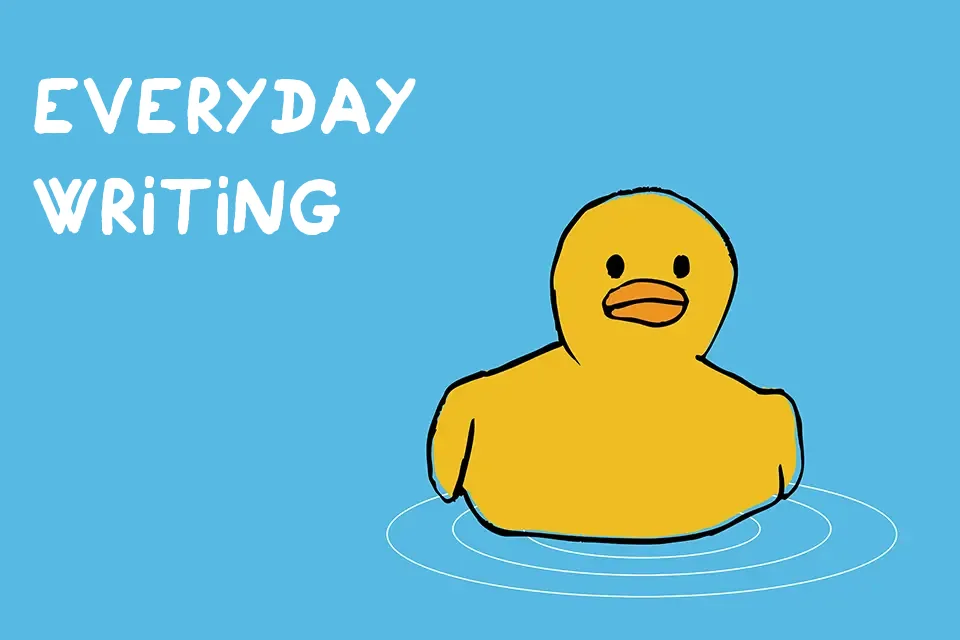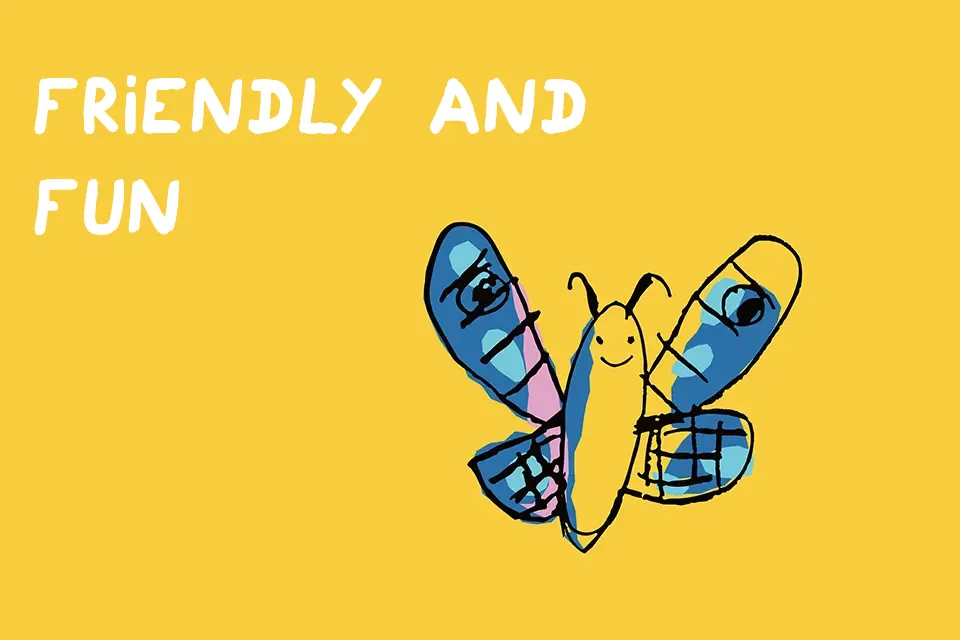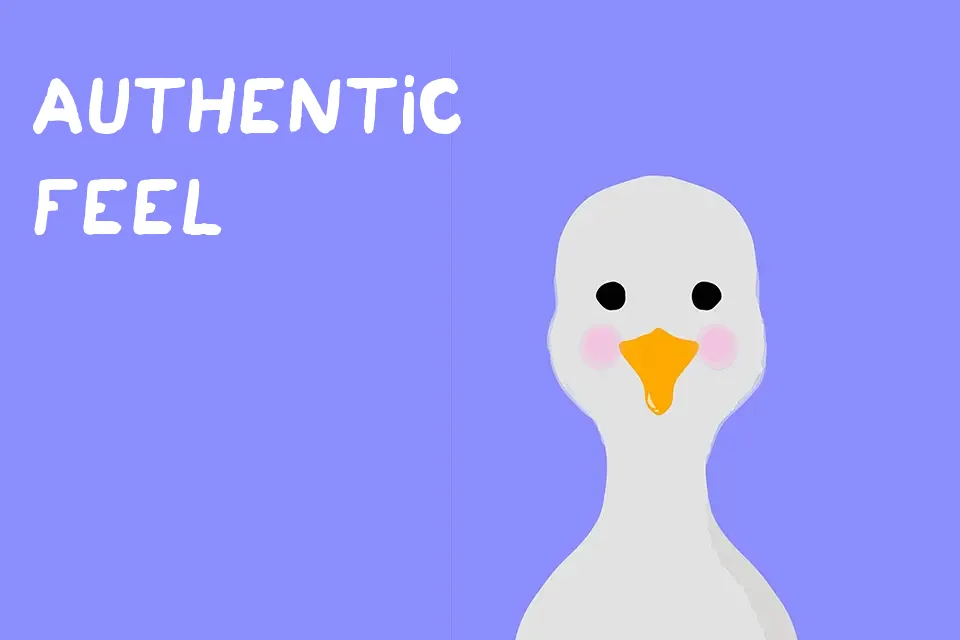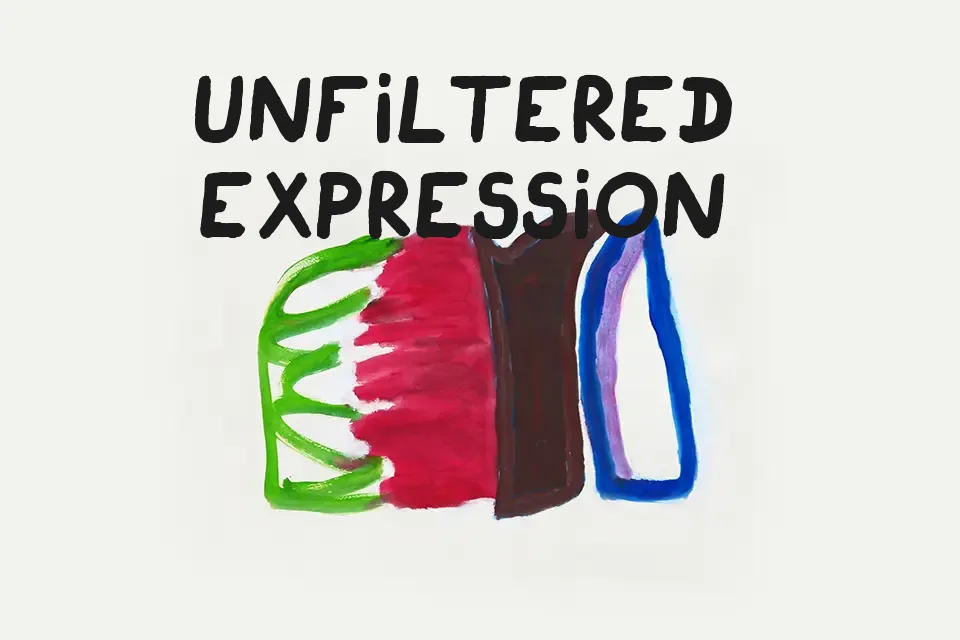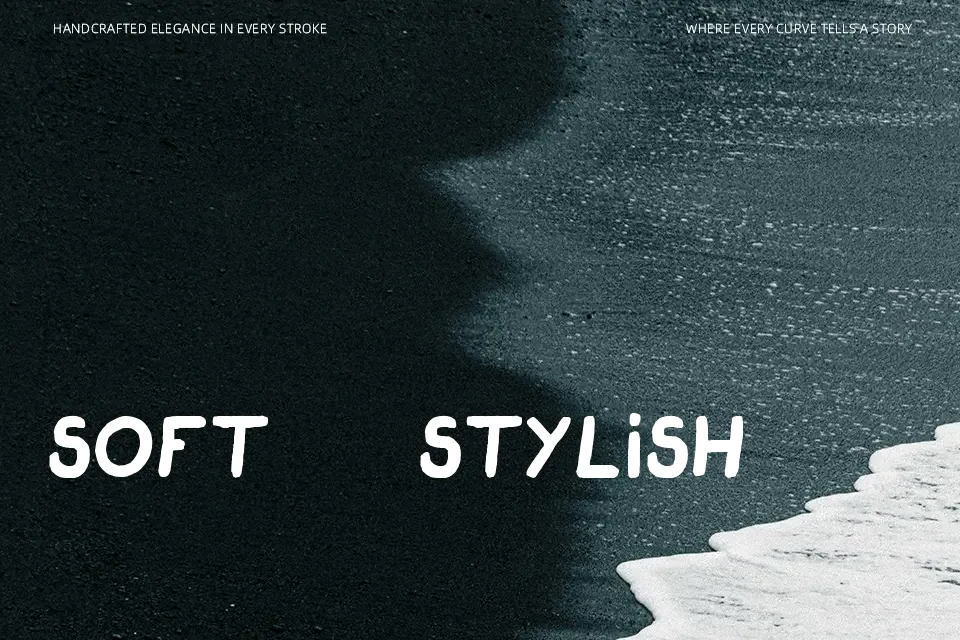
Cigogneau Font
Designing expressive speech bubbles and dynamic storybook headers is where Cigogneau Font truly excels. Built with relaxed, handwritten brushstrokes, this typeface exhibits rounded terminals and natural stroke contrast reminiscent of ink-drawn illustrations. The characters maintain balanced spacing and informal proportions that preserve legibility in short, punchy phrases across display formats. In terms of overall clarity, the letterforms remain distinct and lively in medium to large headers. However, the organic irregularities and stylized hand-rendered geometry make the design less suitable for continuous body text or dense editorial columns where conventional structure is essential.
Best For: comic book dialogue, storybook titles, children merchandise, cartoon animation captions
Not Ideal For: dense body paragraphs, corporate financial reports, technical documentation, small legal disclaimers
Perfect for headline, kids, and packaging, with a artistic and brush style.